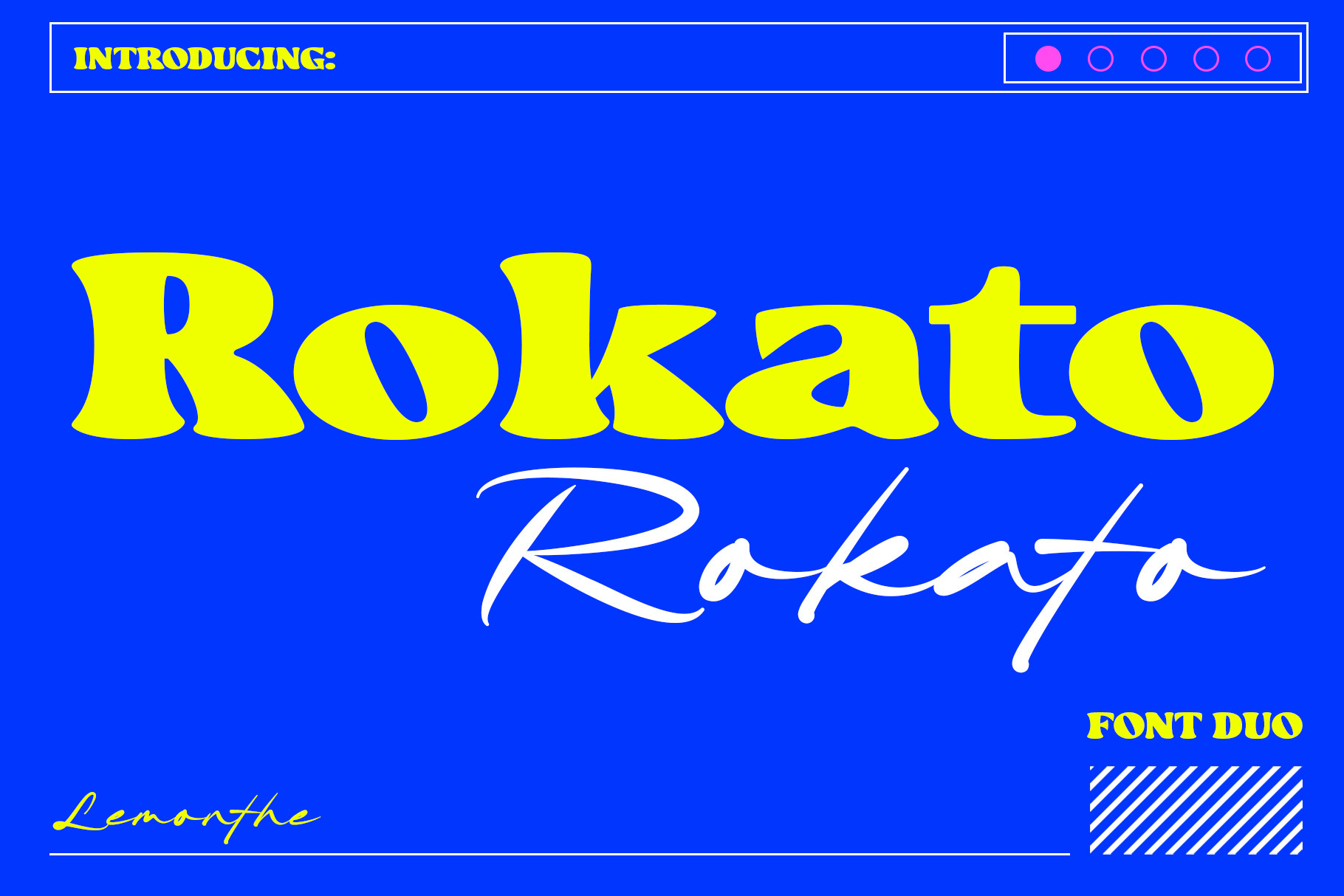
Rokato | Font Duo
Rokato is a font duo that combines a retro-style bold display with a casual script, creating a versatile pairing that works across a wide range of visual needs. The bold display provides strong, eye-catching titles, while the script delivers a relaxed handwritten feel that brings warmth and personality. This combination makes it suitable for various design projects such as logos, branding elements, posters, product packaging, merchandise, social media content, advertising materials, and much more. Each style complements the other, giving designers greater flexibility when building layouts that require contrast, clarity, and a distinctive look. Blending casual charm with a confident retro touch, Rokato ensures every design feels approachable yet full of character.
- Display & Script